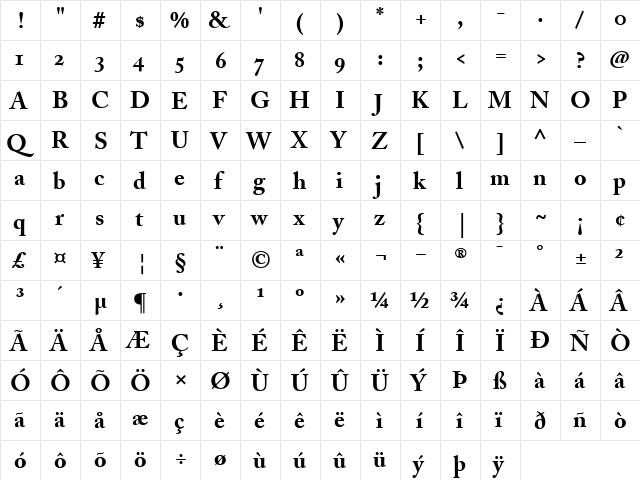
AdobeCaslonOldstyleFigures Bold
Design Context for AdobeCaslonOldstyleFigures Typeface
AdobeCaslonOldstyleFigures brings classic typographic sensibility to the table — its serifs and measured letterforms reflect centuries of print heritage. The heavy weight commands attention and anchors typographic hierarchies.